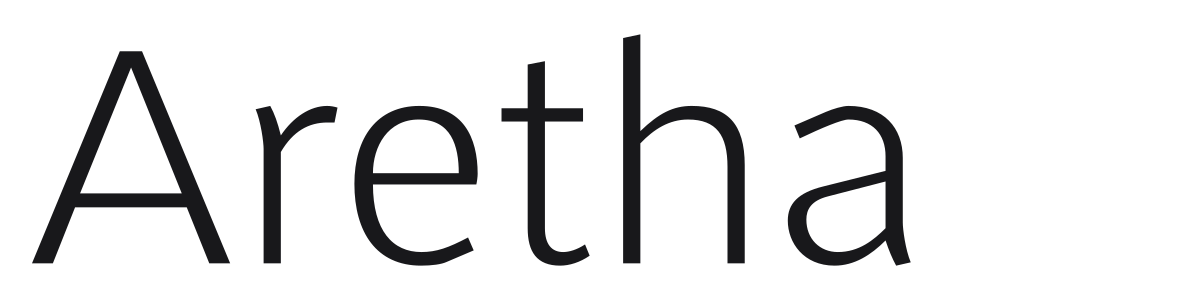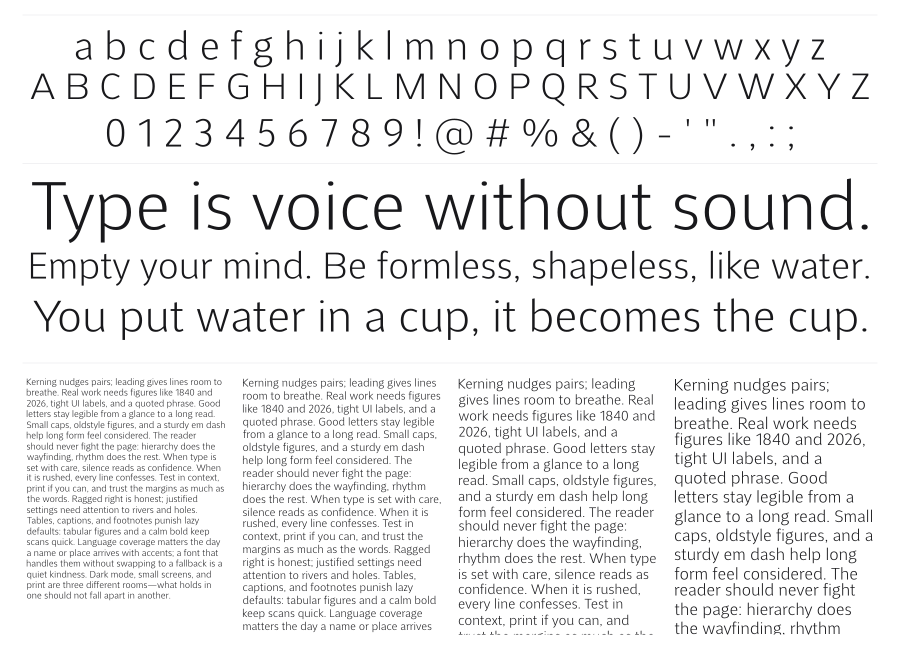
Aretha
Aretha is a light humanist sans-serif that blends clean structure with subtle traditional warmth. Crossbars and horizontal strokes are kept slightly thinner than the verticals, opening up the counters and giving the letters a composed, airy presence. It reads well at text sizes and holds its elegance at display scale.